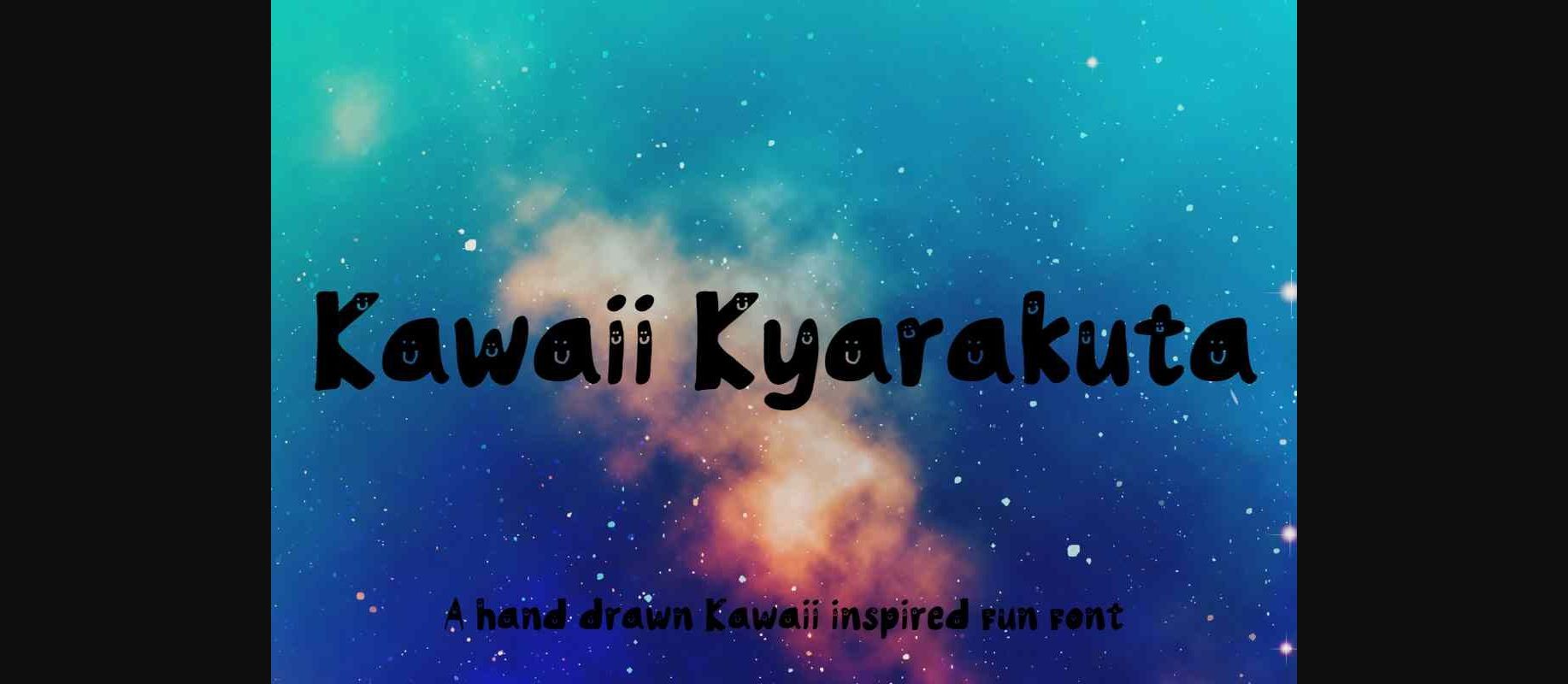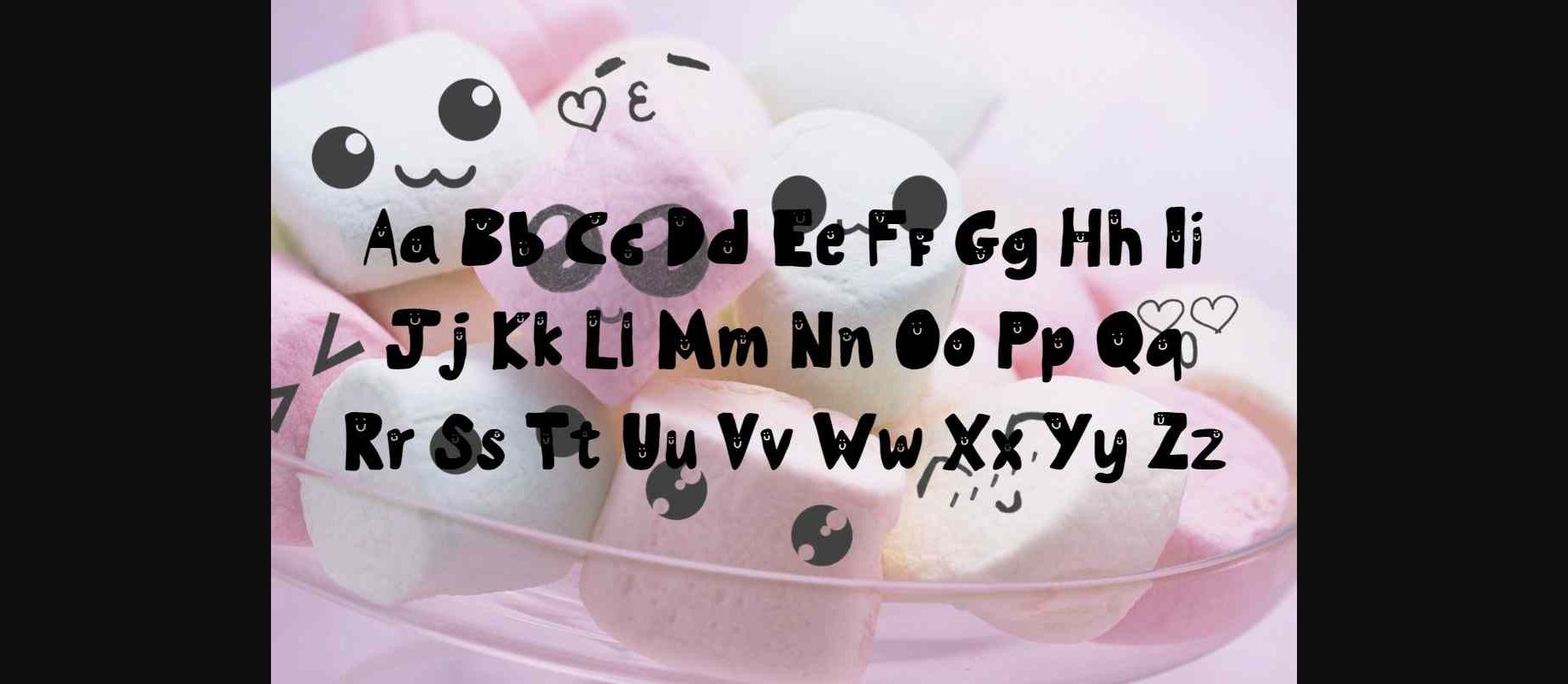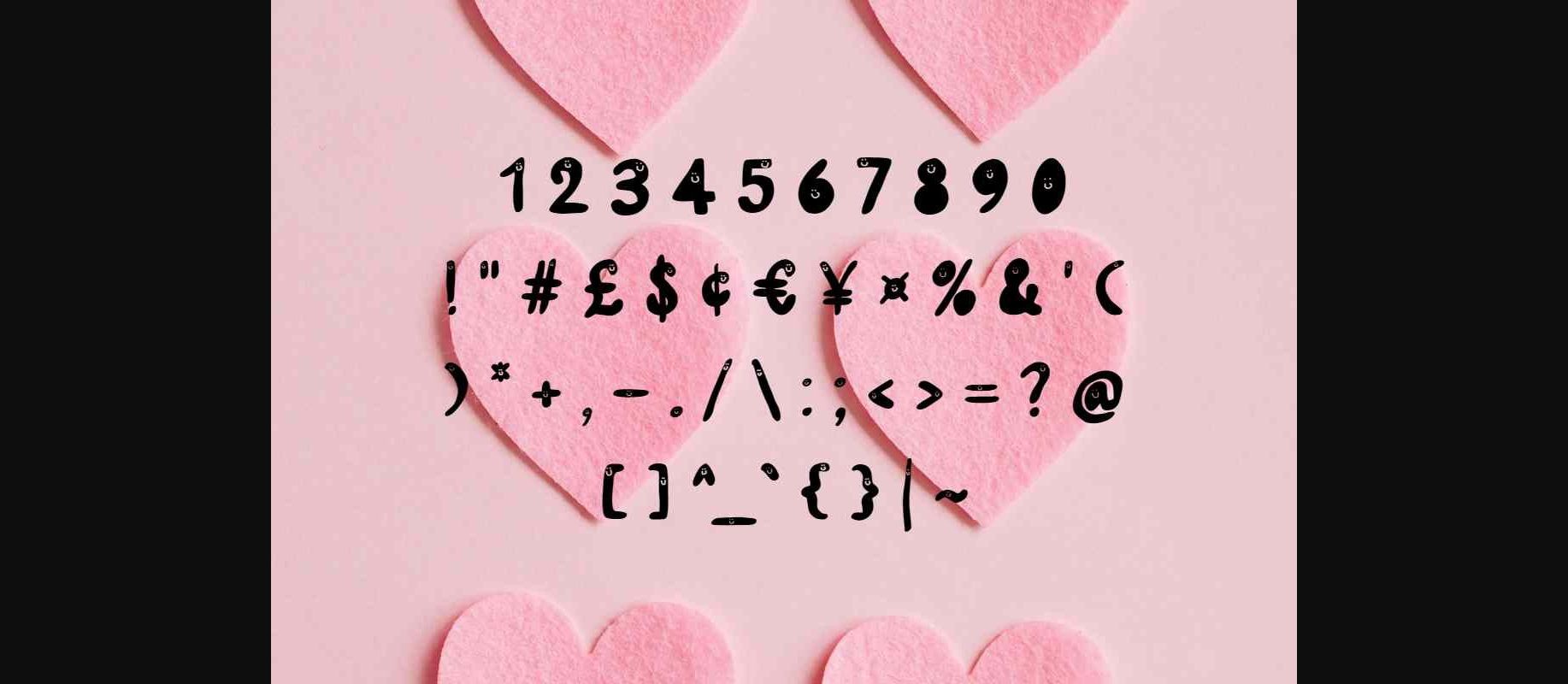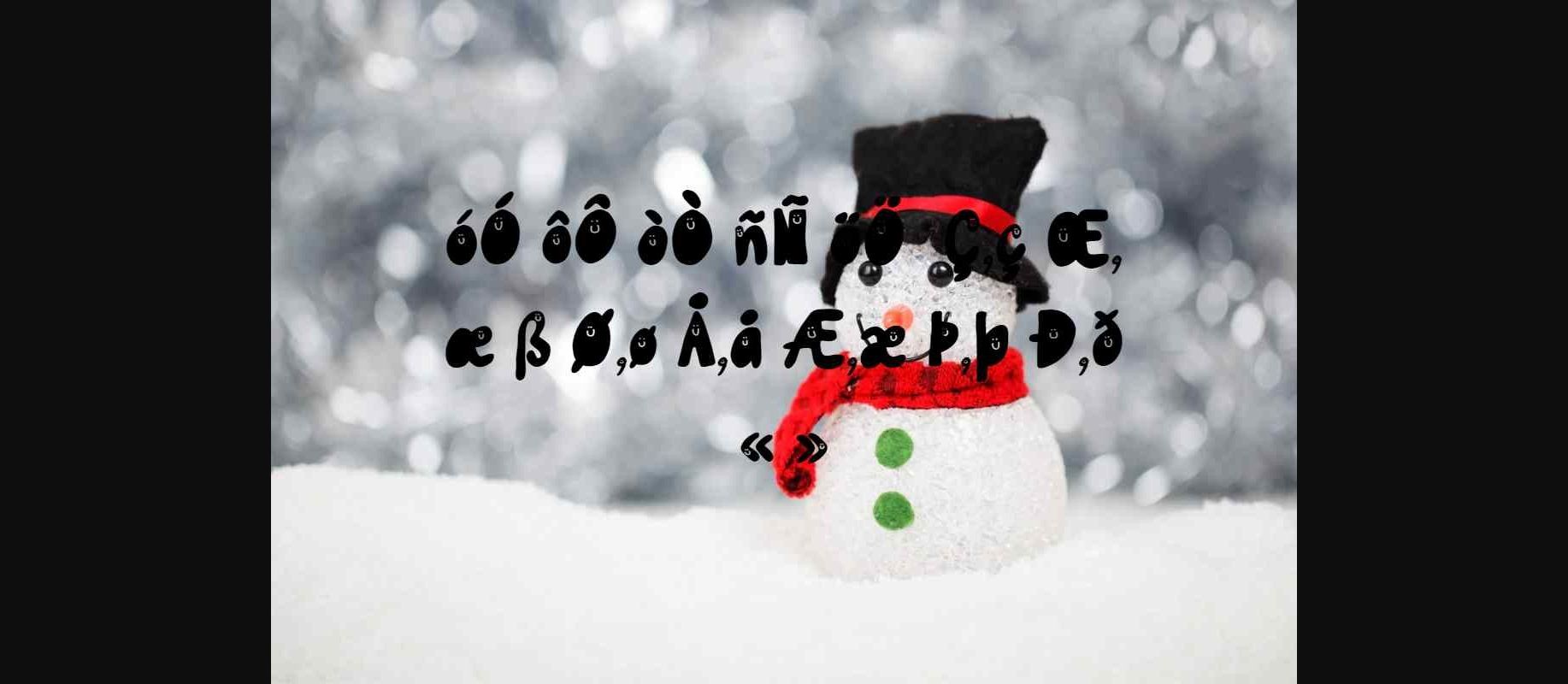
About Kawaii Kyarakuta Font
Kawaii Kyarakuta is a fun and playful decorative font inspired by the Japanese word for cute. Can be used in a variety of ways across personal projects, commercial designs, social media posts, and much, much more.